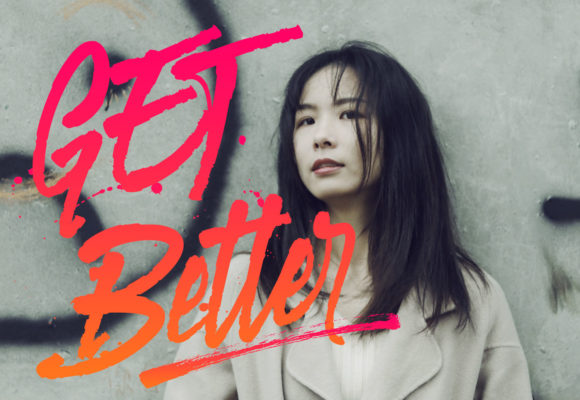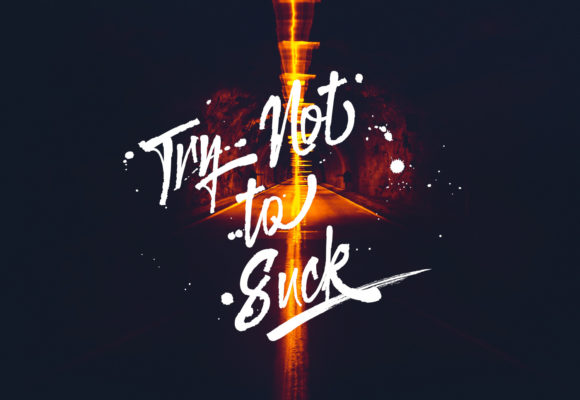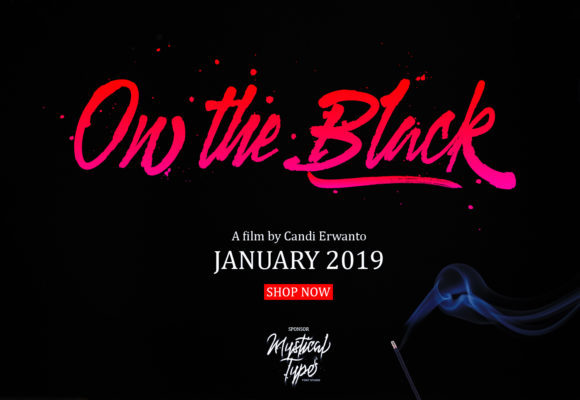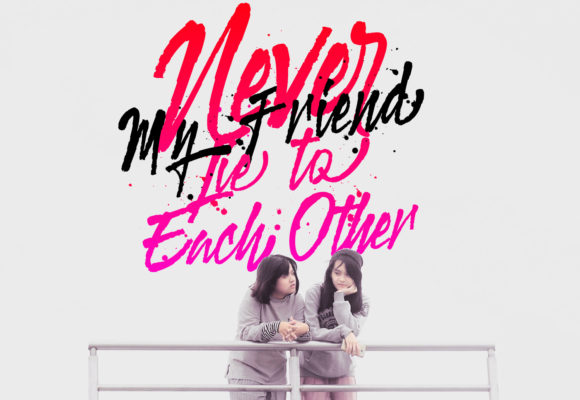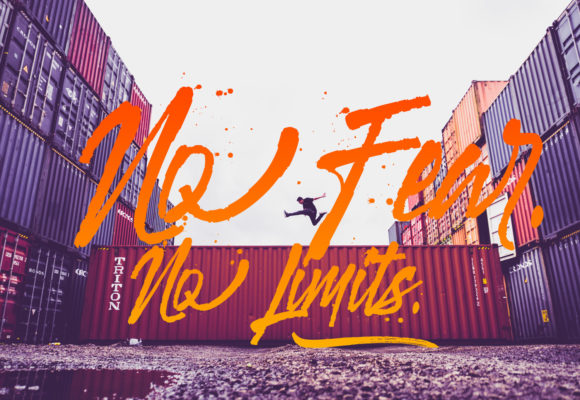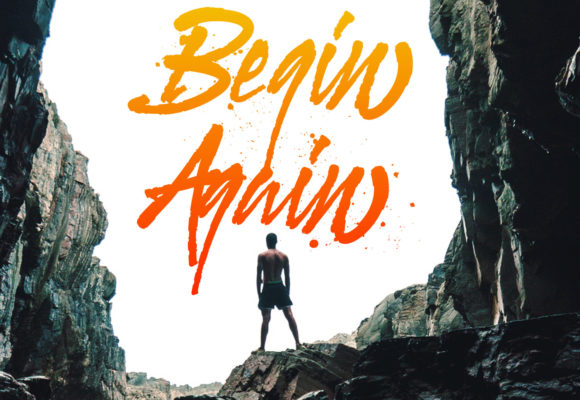
Introducing the Gloucester Script Font: A Trendy and Versatile Brush Script
Are you looking for a font that can add a touch of elegance and sophistication to your designs? Look no further than the Gloucester Script Font. This amazing brush script is handmade and inspired by trendy typography, making it perfect for a wide range of design projects. In this article, we’ll take a closer look at the features and benefits of the Gloucester Script Font and explore how it can be used to elevate your designs.
A Beautifully Crafted Brush Script
The Gloucester Script Font is a stunning brush script that is sure to impress. With its smooth, flowing lines and perfectly crafted letterforms, it’s ideal for creating beautiful handwritten quotes, logos, and headers. The font is handmade, which gives it a unique and personal touch that’s hard to find with digital fonts. The attention to detail and care that has gone into creating the Gloucester Script Font is evident in every letter and stroke.
Perfectly Paired with a Complimentary Marker Font
One of the standout features of the Gloucester Script Font is that it comes with a perfectly paired complimentary marker font. This marker font is designed to work seamlessly with the Gloucester Script Font, allowing you to create beautiful and varied designs with ease. The combination of the two fonts is perfect for creating eye-catching headers, posters, and social media graphics that are sure to grab attention.
Bonus Swashes for Added Creativity
In addition to the Gloucester Script Font and complimentary marker font, you’ll also receive a super handy set of bonus swashes. These swashes can be used to add a touch of elegance and sophistication to your designs, and are perfect for creating beautiful and intricate patterns. With the bonus swashes, you can take your designs to the next level and create truly unique and eye-catching pieces.
Ideal for a Wide Range of Design Projects
The Gloucester Script Font is incredibly versatile and can be used for a wide range of design projects. Whether you’re looking to create a logo, product packaging, or social media graphics, this font is sure to impress. It’s also perfect for crafters who want to add a personal touch to their handmade projects, such as greeting cards, scrapbooking, and other paper crafts.
- Handmade brush script font with a unique and personal touch
- Perfectly paired complimentary marker font for added versatility
- Bonus swashes for added creativity and elegance
- Ideal for logos, handwritten quotes, product packaging, headers, posters, merchandise, social media, and greeting cards
Tips for Using the Gloucester Script Font
Here are a few tips for getting the most out of the Gloucester Script Font:
- Use the Gloucester Script Font and complimentary marker font together to create beautiful and varied designs
- Use the bonus swashes to add a touch of elegance and sophistication to your designs
- Don’t be afraid to get creative and try new things – the Gloucester Script Font is a versatile font that can be used in many different ways
The Gloucester Script Font is a truly amazing brush script that is sure to impress designers and crafters alike. With its beautifully crafted letterforms, perfectly paired complimentary marker font, and bonus swashes, it’s the perfect addition to any design project. Whether you’re looking to create a logo, product packaging, or social media graphics, this font is sure to elevate your designs and take them to the next level.